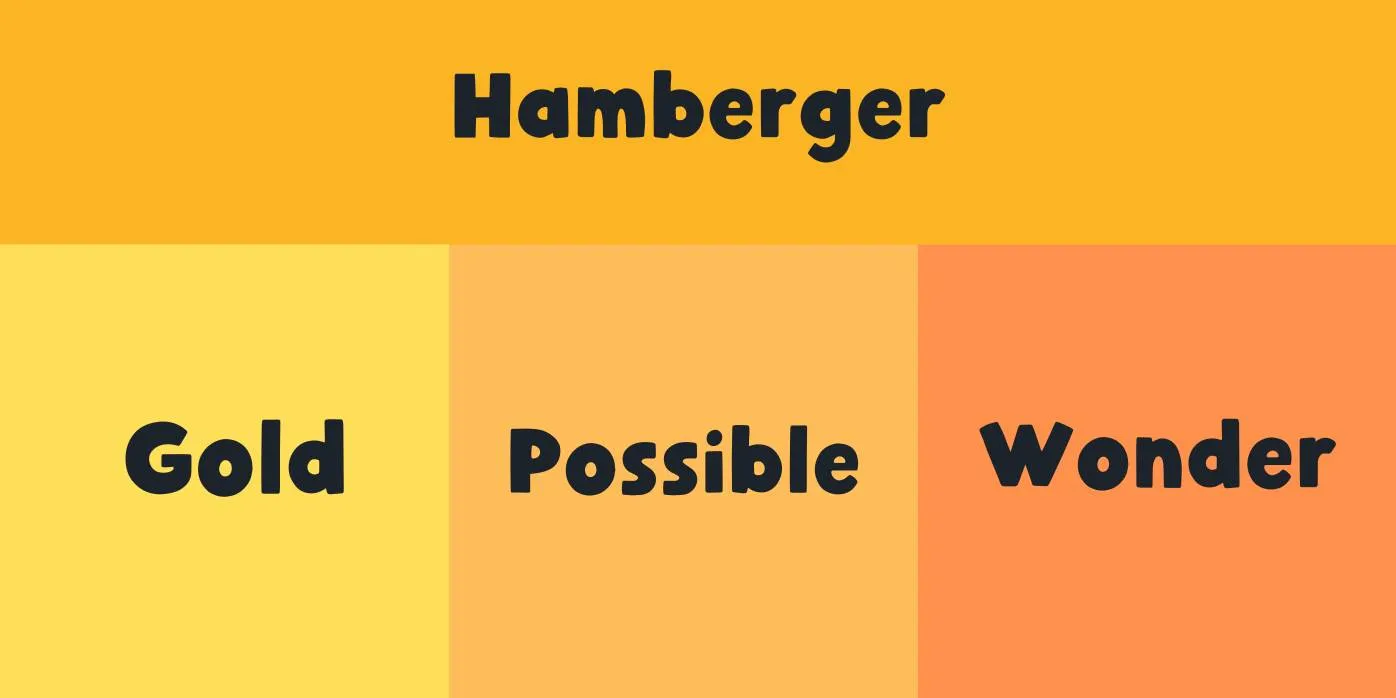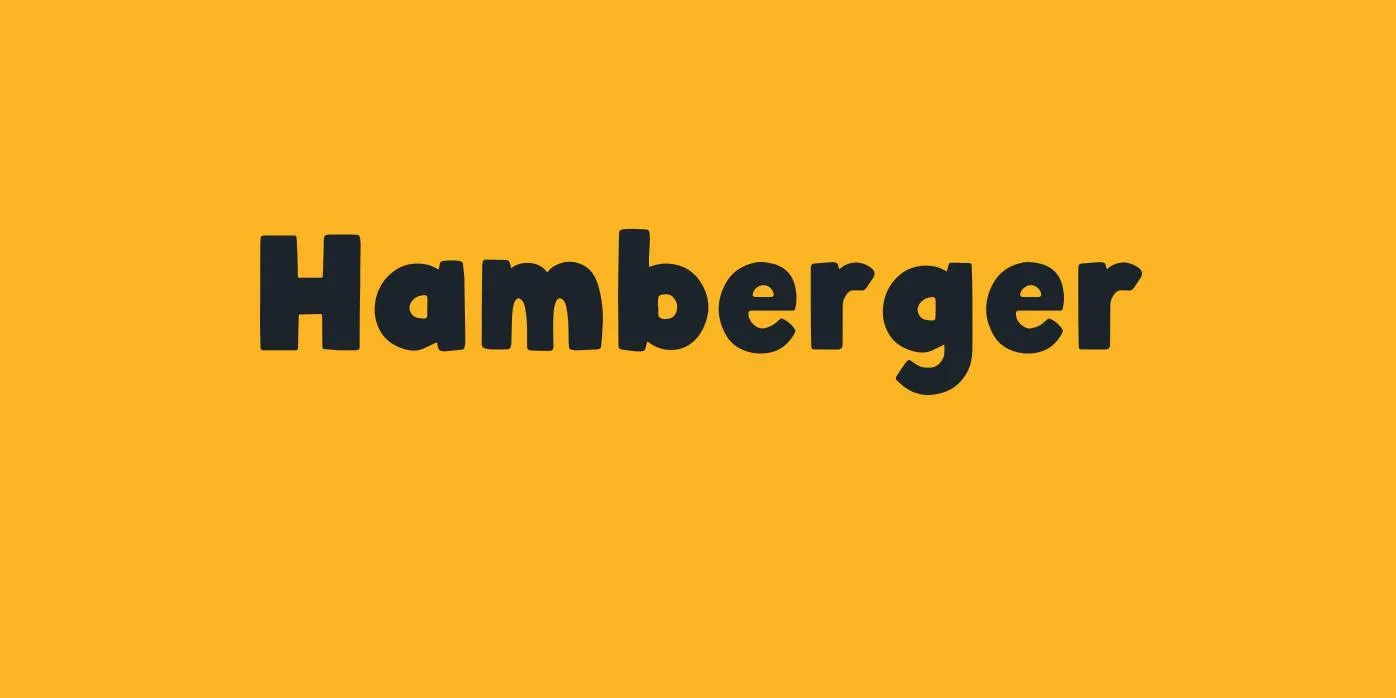
Hamberger Font
Lettering Mom is the designer for this typeface. Hamberger Font is a comic type of font. The characters of this typeface are amazing and stunning. The characters for this typeface have great support for numbers, punctuation, special characters, some international characters, lowercase letters, and uppercase letters.